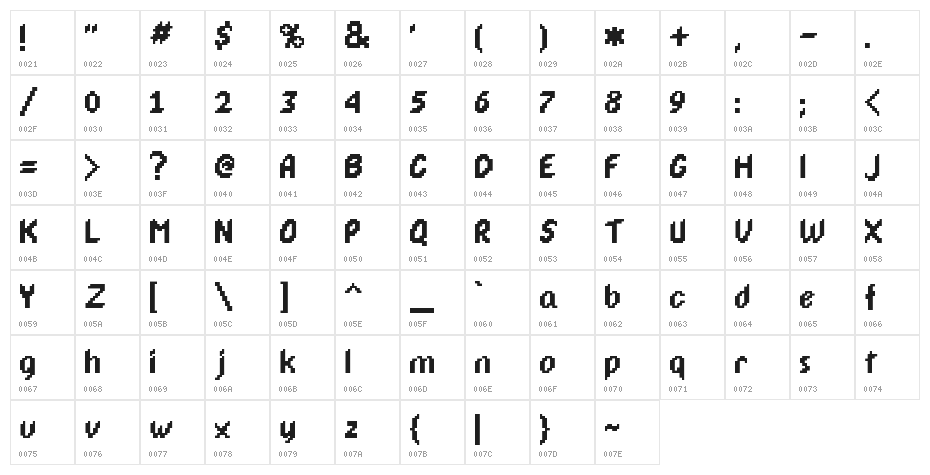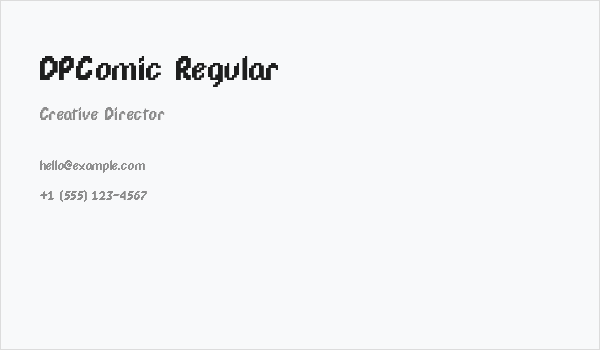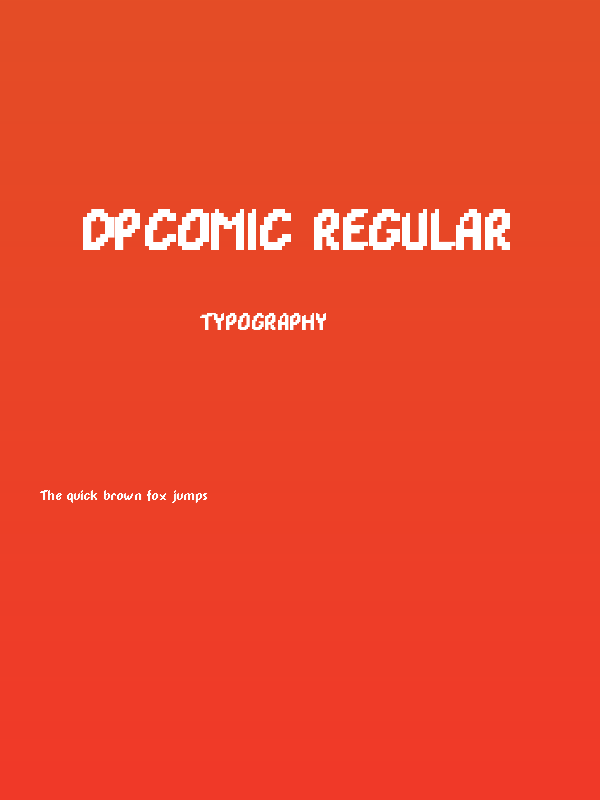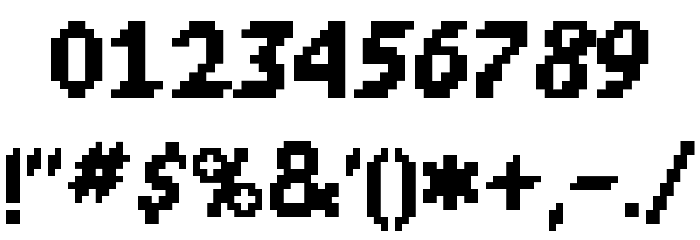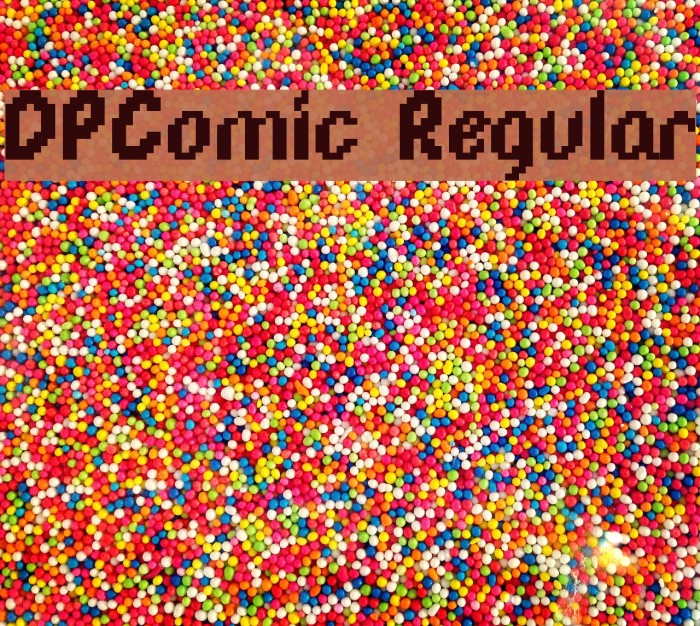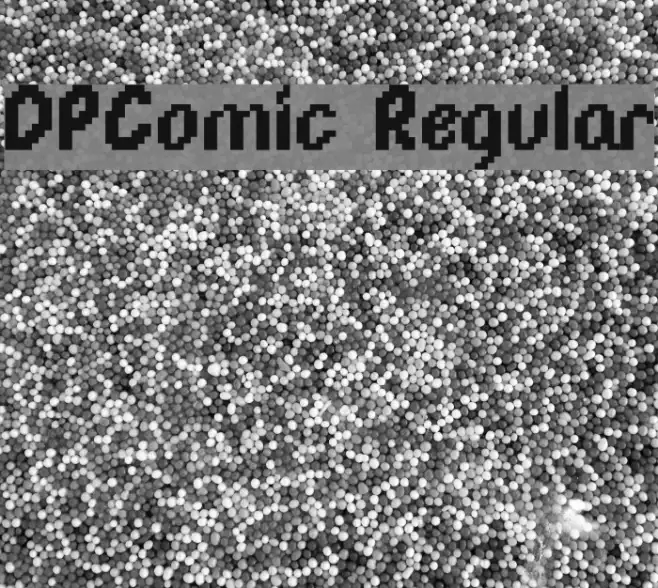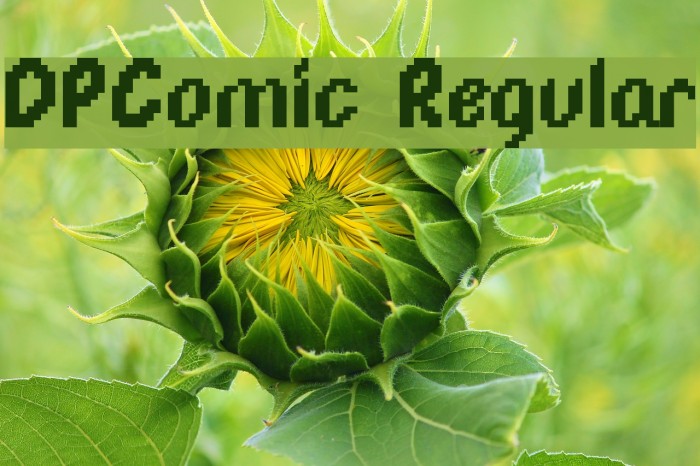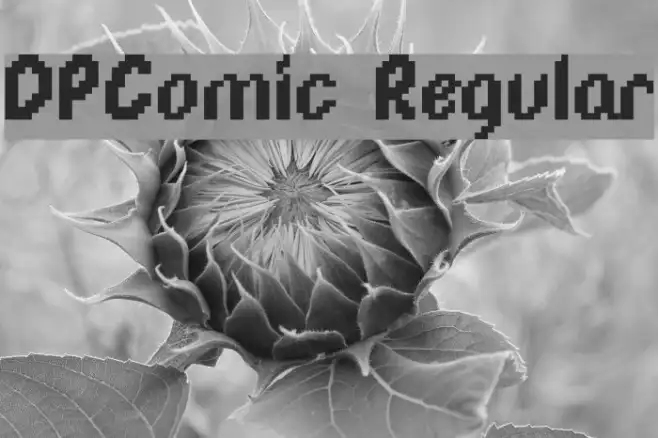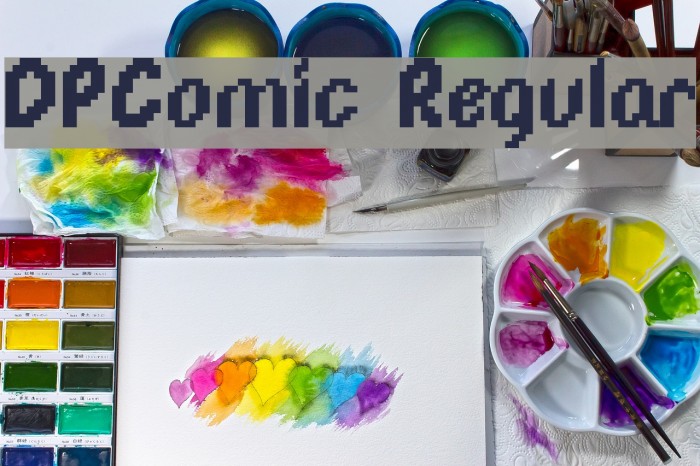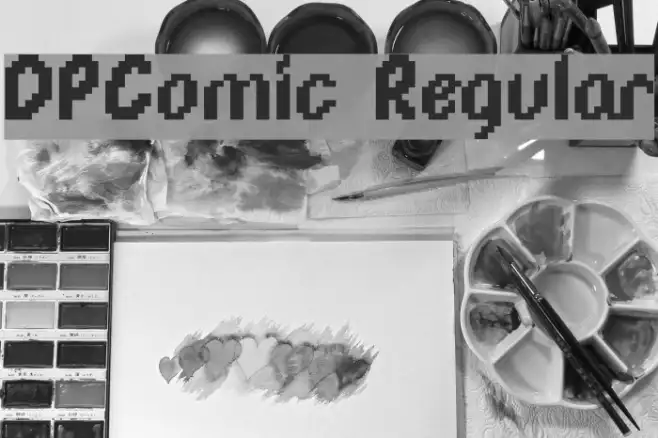
DPComic Regular Font
DPComic Regular Description
This font features a playful, pixelated design reminiscent of retro video games or digital displays. The characters are bold and blocky, with a uniform thickness that gives them a sturdy appearance. The uppercase and lowercase letters maintain a consistent style, enhancing readability while retaining a fun and quirky aesthetic. Numbers and special characters are designed with the same pixelated approach, ensuring a cohesive look across all elements. This font is ideal for projects that aim to evoke nostalgia or a digital theme.
| Proposed Projects | Perfect for video game graphics, retro-themed posters, digital art projects, and playful branding materials. |